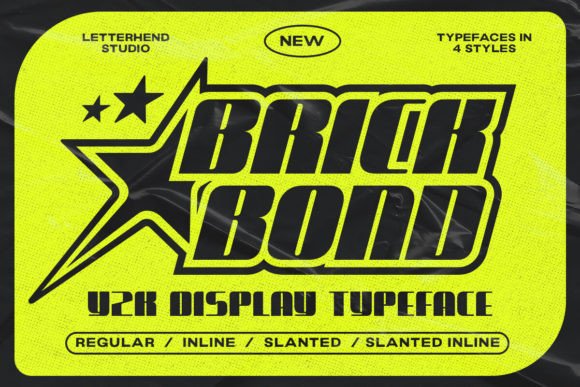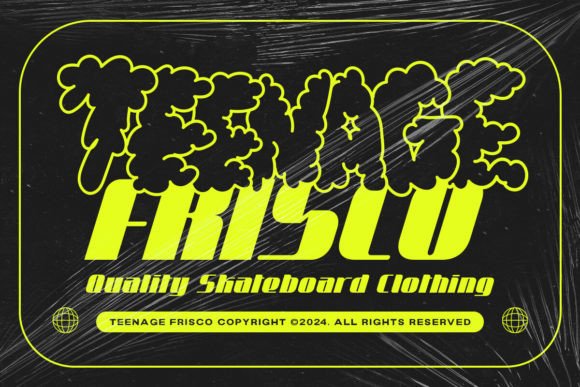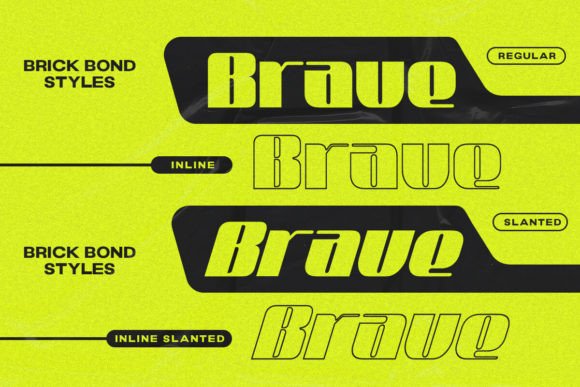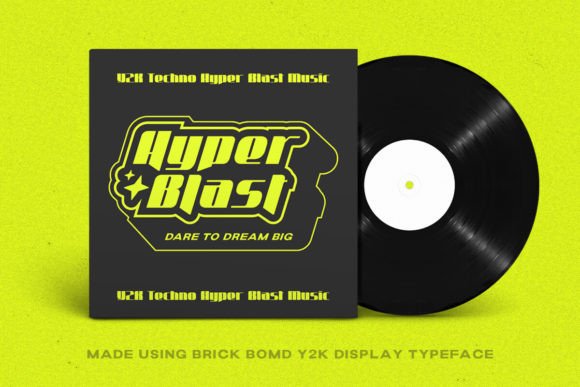
Brick Bond Font: Bold Y2K Display Font for Headlines!
About the Brick Bond Font
Unleash your creativity with Brick Bond Font, a versatile font perfect for a wide range of applications. Introducing Brick Bond, a Y2K font with a futuristic touch that makes your designs shine. It comes with an outline and slant version. Its bold shape draws attention to titles, headlines, and key elements, ensuring your work is noticed.
Brick Bond excels in headlines, posters, and branding applications where a bold, attention-grabbing statement is needed. Its strong geometry is ideal for short, impactful text, making it perfect for logos, signage, and packaging design. However, its weight and unique character make it unsuitable for body text or UI elements requiring high readability. Extended use could strain the eye and hinder comprehension.
The font’s energetic, futuristic personality pairs well with clean sans-serif fonts like Montserrat or Open Sans for a balanced contrast. For a more playful feel, consider pairing it with a rounded geometric sans-serif such as Circular. To add a touch of sophistication, a classic serif like Garamond or a modern script like Great Vibes can be used sparingly to create visual hierarchy and enhance contrast.
Brick Bond’s overall aesthetic is best described as bold and futuristic, leaning towards a rebellious yet modern energy. Brands focused on technology, fashion, or entertainment seeking a striking, memorable visual identity would find it particularly effective.
Brick Bond Font Usage Examples
Brick Bond Font Example